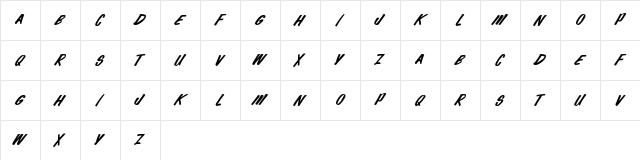
Complete The Quick Marker Regular glyph index. Displaying only characters natively supported by The Quick Marker Regular font.
The Quick Marker is a composed and adaptable typeface that performs quietly and consistently across a wide range of design contexts.